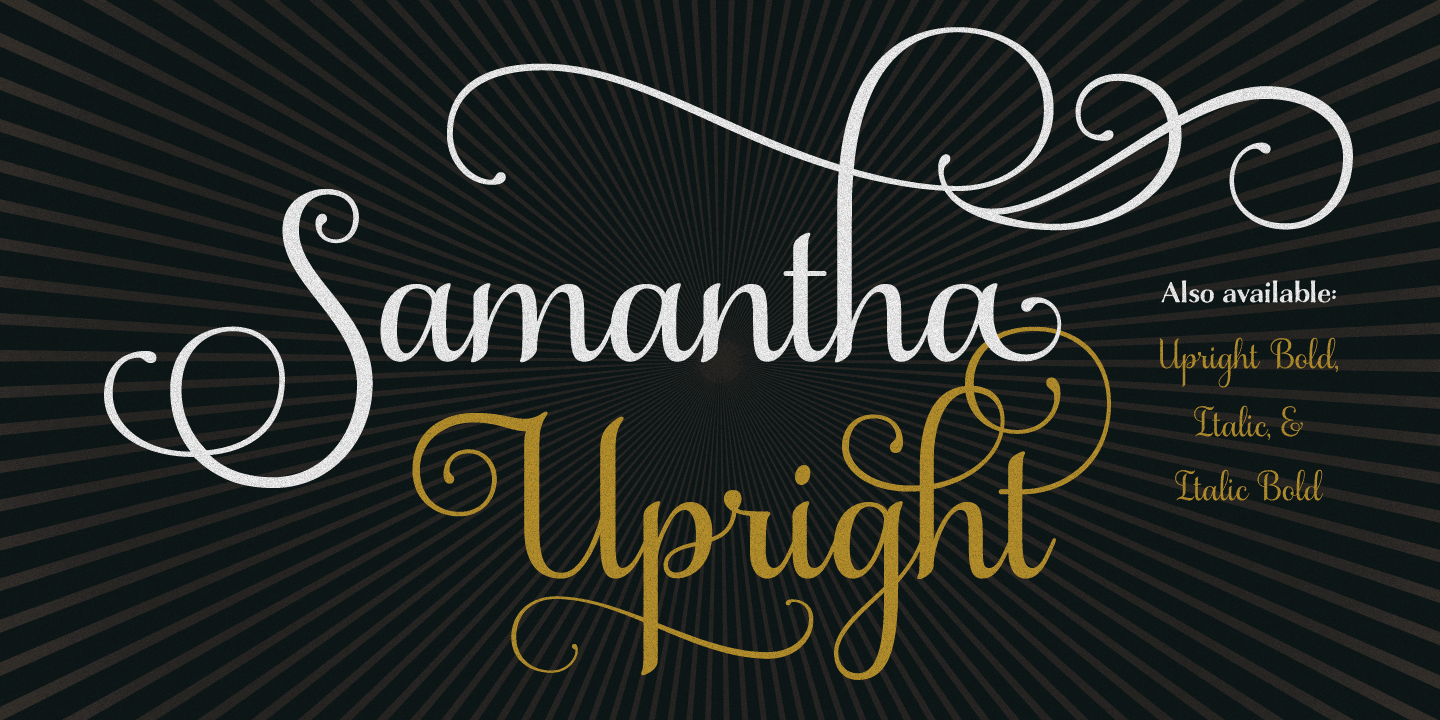
Samantha Font Free Download - Web explore samantha designed by laura worthington at adobe fonts. Web samantha is available in upright or italic variants, each with regular and bold weights and features over 1,100 alternates and. A script typeface with 4 styles, available from. Web samantha font download is available free from fontget. Download free for personal use. Samantha is a free font for personal use created by uloeldesign.
Web samantha font download is available free from fontget. Web samantha is available in upright or italic variants, each with regular and bold weights and features over 1,100 alternates and. A script typeface with 4 styles, available from. Samantha is a free font for personal use created by uloeldesign. Download free for personal use. Web explore samantha designed by laura worthington at adobe fonts.
Web samantha is available in upright or italic variants, each with regular and bold weights and features over 1,100 alternates and. Web samantha font download is available free from fontget. Samantha is a free font for personal use created by uloeldesign. A script typeface with 4 styles, available from. Download free for personal use. Web explore samantha designed by laura worthington at adobe fonts.
Web samantha is available in upright or italic variants, each with regular and bold weights and features over 1,100 alternates and. Download free for personal use. Samantha is a free font for personal use created by uloeldesign. Web explore samantha designed by laura worthington at adobe fonts. Web samantha font download is available free from fontget.
Web samantha font download is available free from fontget. A script typeface with 4 styles, available from. Web explore samantha designed by laura worthington at adobe fonts. Web samantha is available in upright or italic variants, each with regular and bold weights and features over 1,100 alternates and. Download free for personal use.
Samantha is a free font for personal use created by uloeldesign. A script typeface with 4 styles, available from. Download free for personal use. Web samantha font download is available free from fontget. Web explore samantha designed by laura worthington at adobe fonts.
Web samantha font download is available free from fontget. Samantha is a free font for personal use created by uloeldesign. Web explore samantha designed by laura worthington at adobe fonts. Web samantha is available in upright or italic variants, each with regular and bold weights and features over 1,100 alternates and. Download free for personal use.
Web explore samantha designed by laura worthington at adobe fonts. A script typeface with 4 styles, available from. Download free for personal use. Web samantha font download is available free from fontget. Web samantha is available in upright or italic variants, each with regular and bold weights and features over 1,100 alternates and.
Web samantha font download is available free from fontget. Web samantha is available in upright or italic variants, each with regular and bold weights and features over 1,100 alternates and. Download free for personal use. Web explore samantha designed by laura worthington at adobe fonts. A script typeface with 4 styles, available from.
Samantha Fonts Shmonts
Web samantha is available in upright or italic variants, each with regular and bold weights and features over 1,100 alternates and. Web samantha font download is available free from fontget. A script typeface with 4 styles, available from. Web explore samantha designed by laura worthington at adobe fonts. Samantha is a free font for personal use created by uloeldesign.
Samantha [1 Font] • The Fonts Master
Web samantha font download is available free from fontget. Samantha is a free font for personal use created by uloeldesign. Download free for personal use. A script typeface with 4 styles, available from. Web samantha is available in upright or italic variants, each with regular and bold weights and features over 1,100 alternates and.
Samantha Script Upright PRO Fonts
Web samantha font download is available free from fontget. Web explore samantha designed by laura worthington at adobe fonts. Download free for personal use. A script typeface with 4 styles, available from. Samantha is a free font for personal use created by uloeldesign.
Samantha Font Download
Download free for personal use. Web explore samantha designed by laura worthington at adobe fonts. A script typeface with 4 styles, available from. Web samantha is available in upright or italic variants, each with regular and bold weights and features over 1,100 alternates and. Samantha is a free font for personal use created by uloeldesign.
Web explore samantha designed by laura worthington at adobe fonts. Samantha is a free font for personal use created by uloeldesign. Web samantha is available in upright or italic variants, each with regular and bold weights and features over 1,100 alternates and. Web samantha font download is available free from fontget.